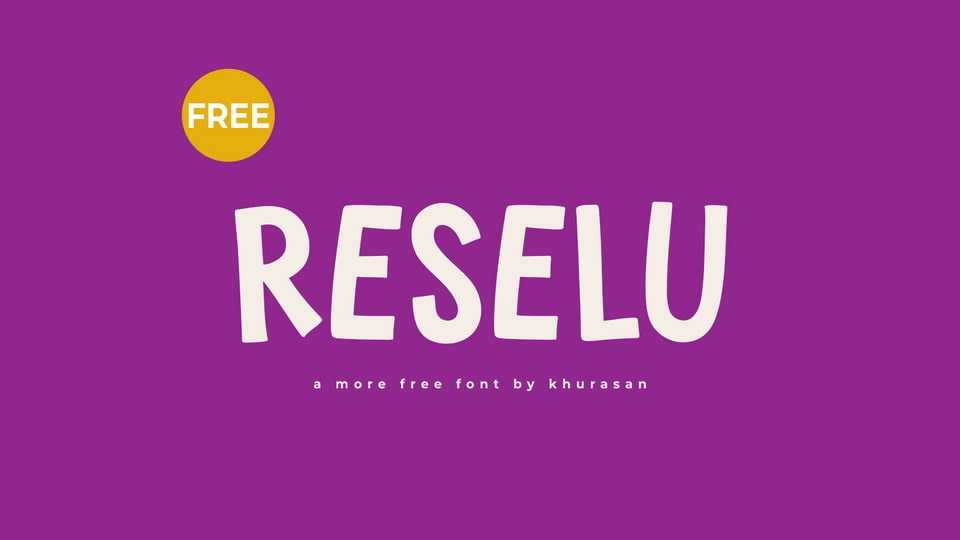
Download Reselu font, a playful and bouncy hand-crafted typeface that brings a lively and energetic touch to your designs. It features cheerful, free-spirited letterforms with exaggerated curves and playful irregularities.